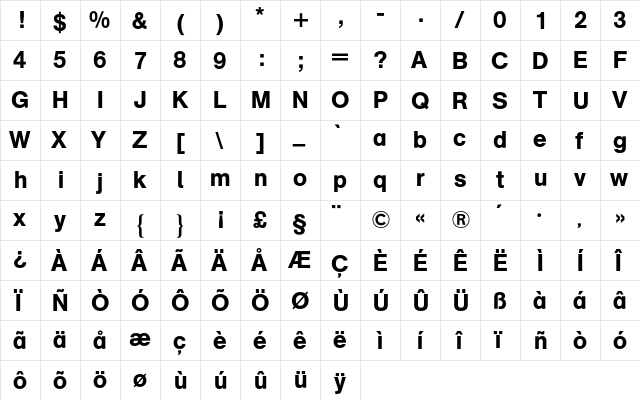
AG Schulbuch Two BQ Regular
Design Context for AG Schulbuch Two BQ Typeface
AG Schulbuch Two BQ is a composed and adaptable typeface that performs quietly and consistently across a wide range of design contexts.